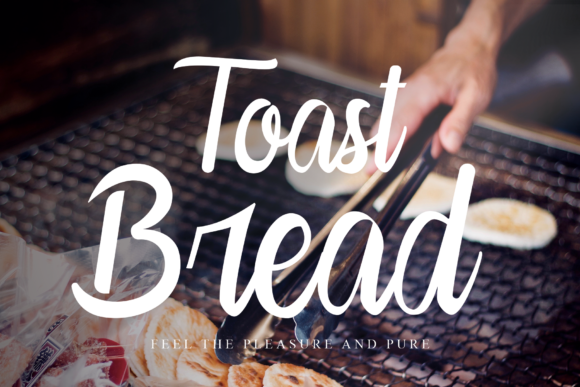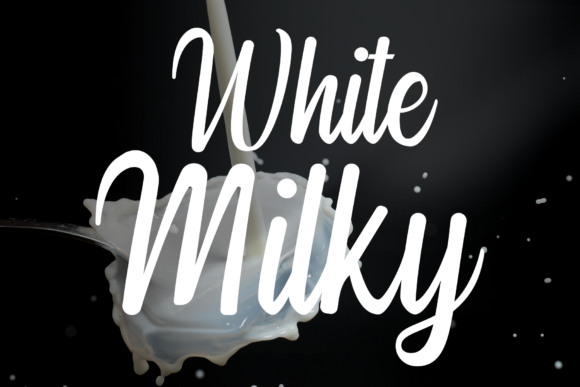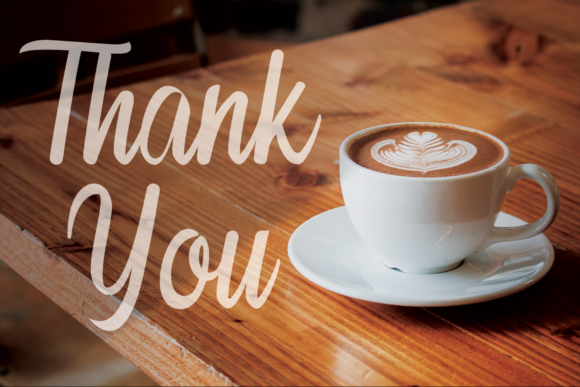
Elevate Your Design with Black Coffee Font: A Timeless Classic
Are you a designer or crafter looking for a font that can add a touch of sophistication and elegance to your projects? Look no further than the Black Coffee Font. Inspired by classic typography, this font brings its own unique style to any design project, making it the perfect choice for a wide range of applications.
The Inspiration Behind Black Coffee Font
Black Coffee Font is rooted in traditional typography, with a nod to the classic fonts that have been used in design for centuries. However, it also has its own distinct personality, which sets it apart from other fonts in its category. This unique blend of old and new makes Black Coffee Font an excellent choice for designers who want to create something timeless and memorable.
The Versatility of Black Coffee Font
One of the standout features of Black Coffee Font is its versatility. Whether you’re working on a branding project, creating headings for a website, designing wedding invitations, or crafting labels and logos, this font is sure to elevate your design to the highest level. Its classic style ensures that it will never go out of fashion, making it a great investment for designers and crafters who want a font that will stand the test of time.
Use Cases for Black Coffee Font
So, what can you use Black Coffee Font for? The possibilities are endless! Here are just a few ideas to get you started:
- Branding: Use Black Coffee Font to create a logo or typography for your brand that exudes sophistication and elegance.
- Wedding Designs: Add a touch of romance and whimsy to your wedding invitations, programs, and other stationery with Black Coffee Font.
- Headings and Titles: Use Black Coffee Font to create eye-catching headings and titles for your website, blog, or social media channels.
- Signatures and Labels: Add a personal touch to your email signatures, product labels, or packaging with Black Coffee Font.
- Logos and Icons: Use Black Coffee Font to create custom logos and icons that are both stylish and memorable.
Why Choose Black Coffee Font?
So, why should you choose Black Coffee Font for your design projects? Here are just a few reasons:
- Timeless Style: Black Coffee Font has a classic style that will never go out of fashion.
- Versatility: This font can be used for a wide range of design projects, from branding and headings to wedding designs and labels.
- Elegance: Black Coffee Font adds a touch of sophistication and elegance to any design project.
- Unique Personality: This font has its own distinct personality, which sets it apart from other fonts in its category.